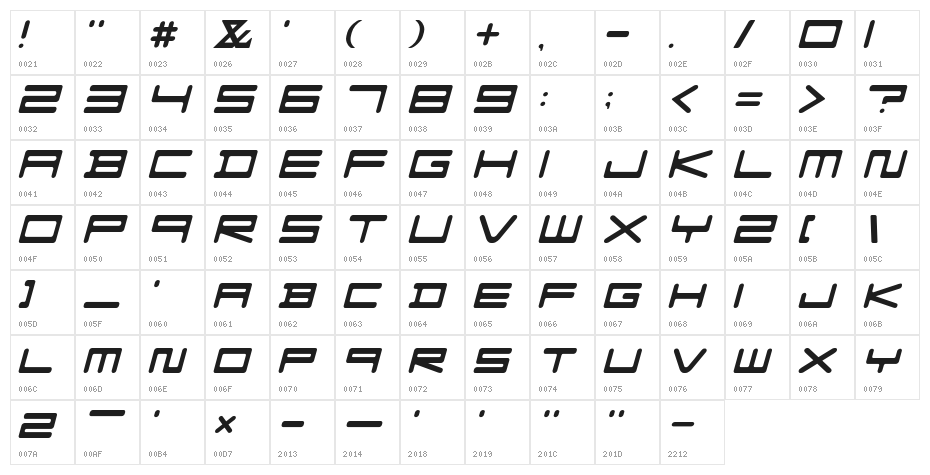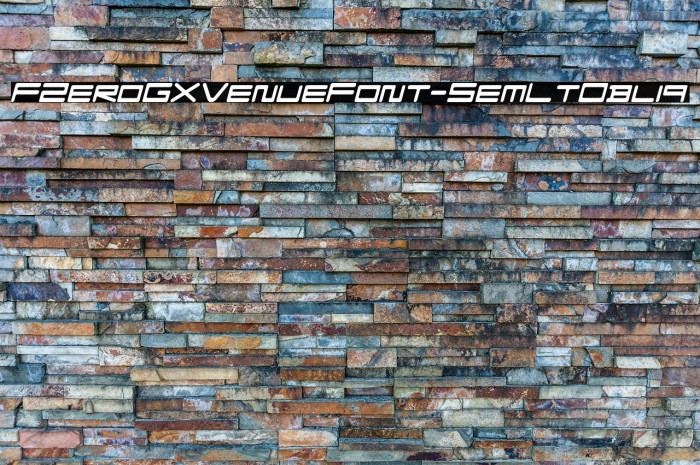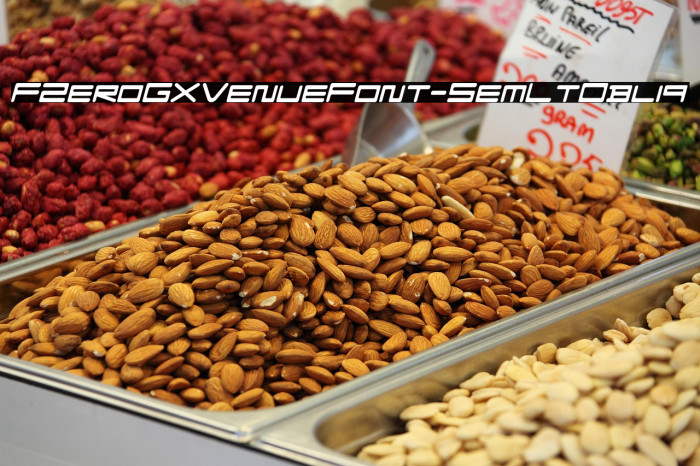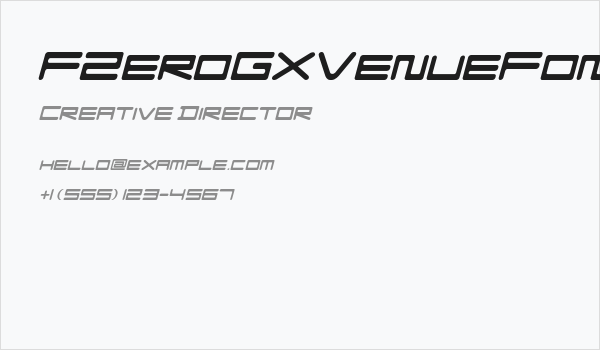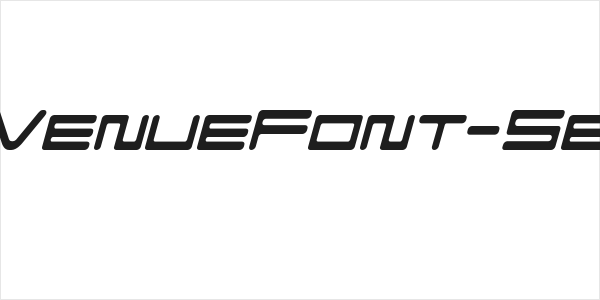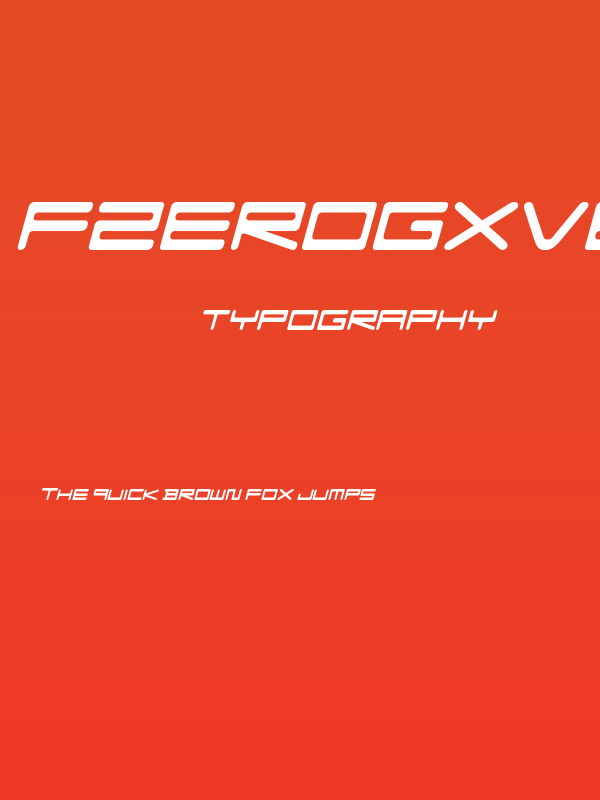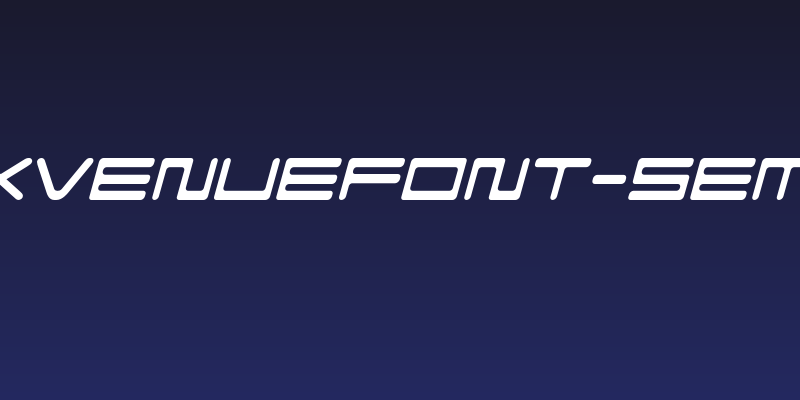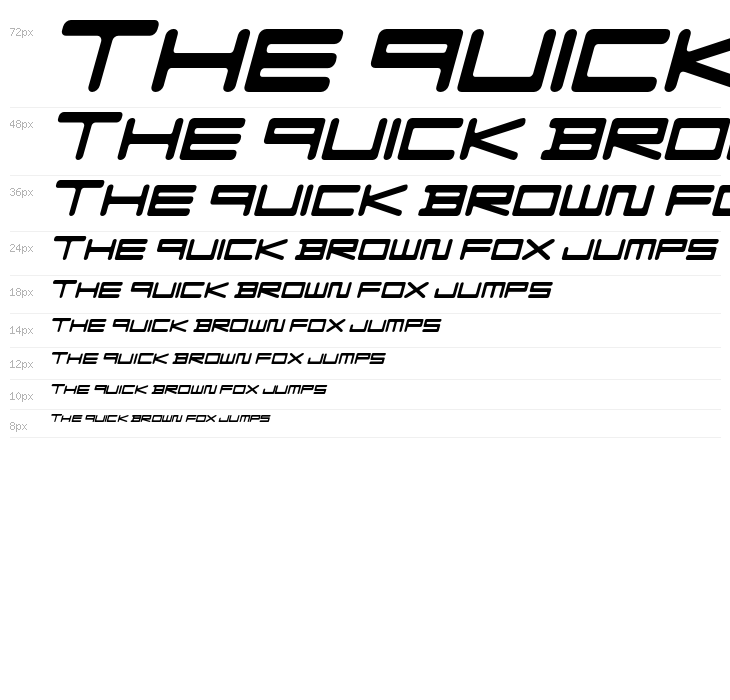
FZeroGXVenueFont-SemLtObliq Font
FZeroGXVenueFont-SemLtObliq Description
This font features a sleek, futuristic design with a distinct oblique style, giving it a dynamic and forward-moving appearance. The characters are slightly condensed with a uniform stroke width, creating a streamlined and modern look. The angular edges and geometric shapes contribute to its high-tech aesthetic, making it ideal for projects that require a contemporary and innovative feel. The font maintains a consistent rhythm across all characters, ensuring readability while still offering a unique visual appeal.
| Proposed Projects | Ideal for technology branding, video game titles, sci-fi movie posters, and modern digital interfaces. |